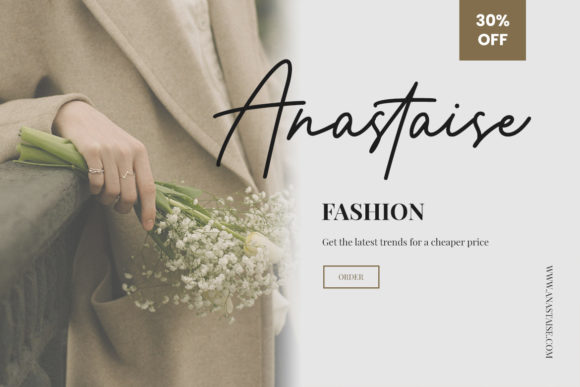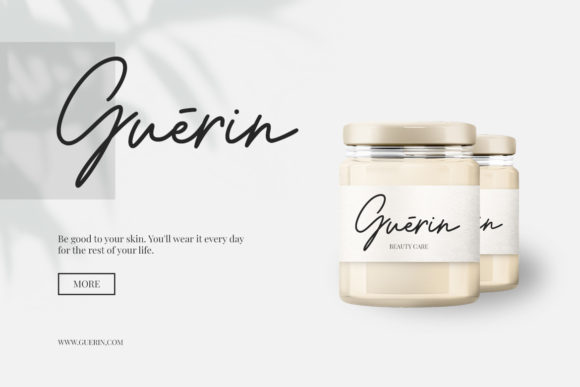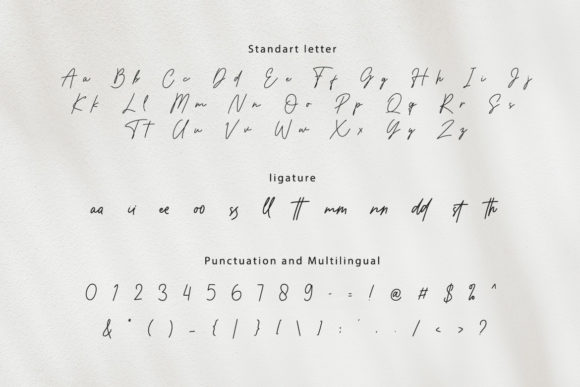
Introduction to Keanister Font
As a designer, there’s nothing quite like the thrill of bringing a creative project to life. You’ve poured over countless options, but nothing seems quite right. Then, like a ray of sunshine, you stumble upon the perfect design resource – the Keanister Font. This modern signature script is a game-changer, offering a natural and stylish flow that elevates any project to the next level.
With its high-quality design, the Keanister Font is perfect for personal branding, greeting cards, magazine layouts, social media graphics, and packaging designs. And the best part? It’s available for a free download, making it an accessible design resource for creatives of all levels.
Key Features of Keanister Font
- High-quality design with a unique and creative style, making it perfect for various projects.
- Unique characteristics: The Keanister Font features a distinctive and quirky style, making it a great addition to any creative project.
Honest Review: Keanister Font
I recently came across the Keanister Font while searching for a high-quality design resource for a creative project. After giving it a try, I’m excited to share my honest review with you.
- ✨ The Keanister Font has a unique and modern design that makes it perfect for any creative project.
- ✨ The font is highly customizable, allowing you to adjust the size, color, and style to suit your needs.
Overall, I’m impressed with the Keanister Font. It’s a great addition to any designer’s toolkit, and its free download makes it an excellent resource for any creative project. With a little bit of creativity, you can achieve some amazing results with this font.
To get the most out of the Keanister Font, use it in conjunction with a transparent background to create stunning graphics and designs. You can also experiment with different font sizes and styles to add visual interest to your project.
The Keanister Font is perfect for a variety of creative projects, including:
What is the recommended font size for optimal readability with the Keanister Font?
The recommended font size for optimal readability with the Keanister Font is between 18-24 points. However, this may vary depending on the specific design project and the intended audience. Experiment with different font sizes to find the optimal balance between readability and visual impact.